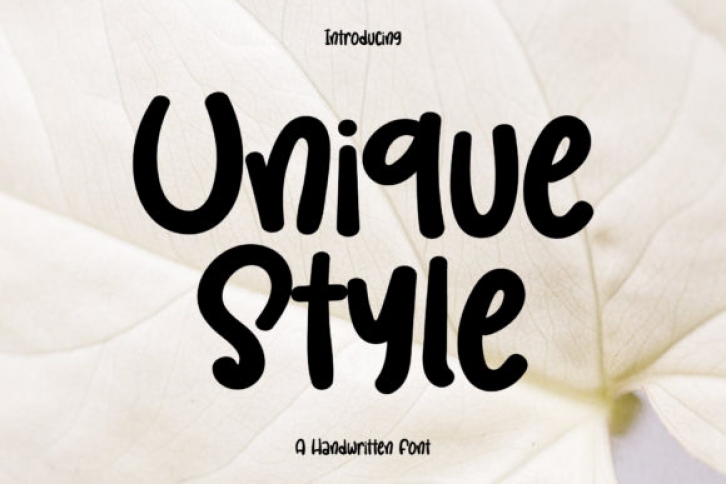
Unique Style is a cute and relaxed paint brushed handwritten font. It can easily be matched to an incredibly large set of projects, so add it to your creative ideas and notice how it makes them stand out!